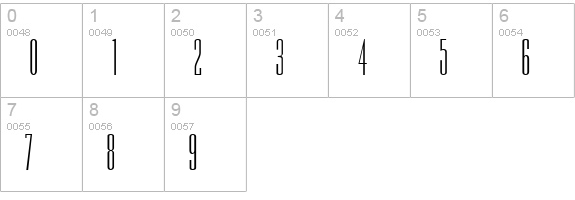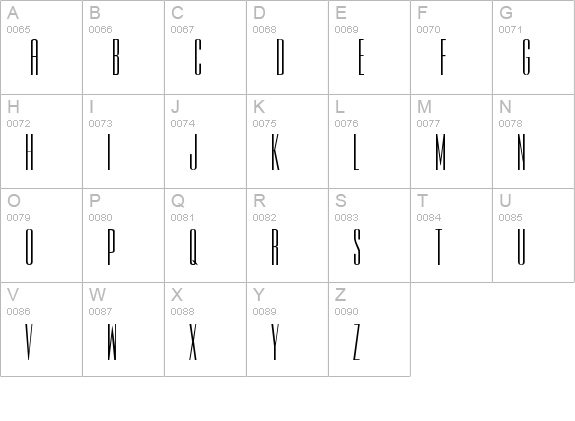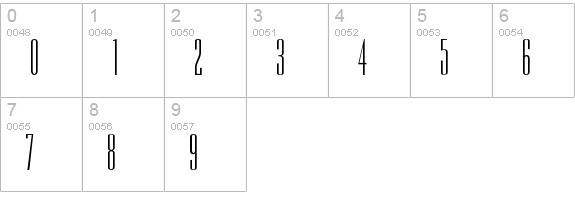
Rothman Plain Font is a timeless and versatile typeface that exudes elegance and sophistication. Crafted with meticulous attention to detail, this font is perfect for a wide range of design projects, from logos and branding to editorial layouts and web design. The clean and crisp lines of Rothman Plain Font make it a standout choice for both print and digital applications. Its simplicity and readability ensure that your message is conveyed with clarity and impact. Whether you're designing a professional business card or creating a captivating website, this font will effortlessly elevate your design to new heights. One of the best parts about Rothman Plain Font is that it is free. Yes, you read that right – this stunning typeface is freely available to download at FontsMarket.com. This means that you can enhance your creative projects without breaking the bank. With its generous character set and multiple stylistic alternatives, Rothman Plain Font offers endless possibilities for creating unique and eye-catching designs. Designed with versatility in mind, Rothman Plain Font is equally well-suited for both headline and body text. Its balanced proportions and impeccable spacing ensure optimal legibility, even at smaller sizes. This font truly embodies the perfect blend of classic elegance and modern simplicity. Whether you're a seasoned designer or just starting out, Rothman Plain Font is a must-have addition to your font library. Its timeless appeal and exquisite craftsmanship will add a touch of sophistication to any project. So why wait? Head over to FontsMarket.com and download Rothman Plain Font for free today. Unleash your creativity and let this font be your secret weapon in creating stunning designs that leave a lasting impression.